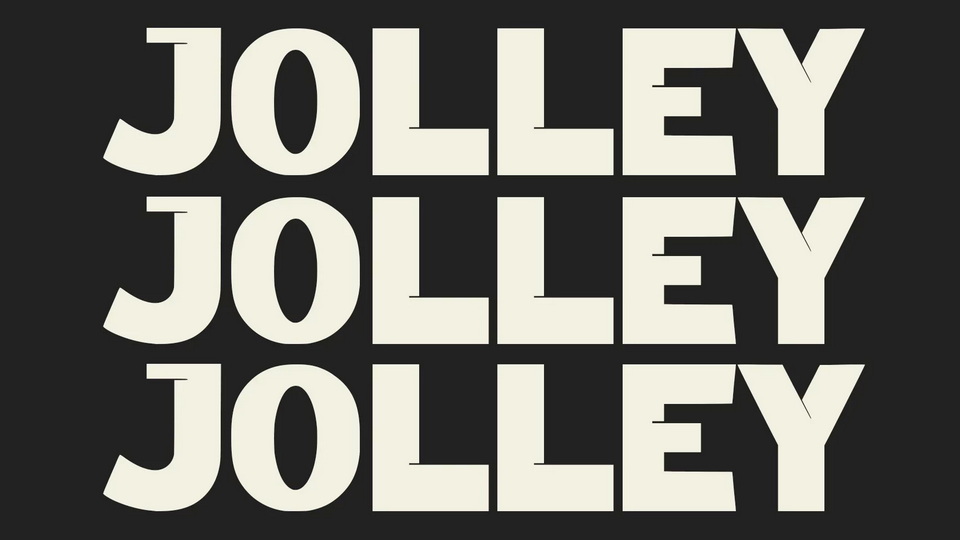
Download Jolley font, a versatile, bold and unique sans serif display typeface. With a combination between high contrast and comic style, Jolley has its unique style.